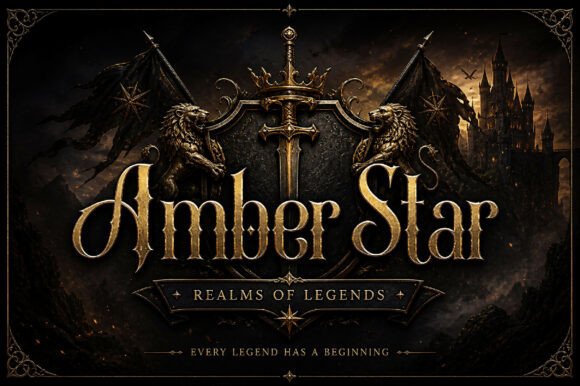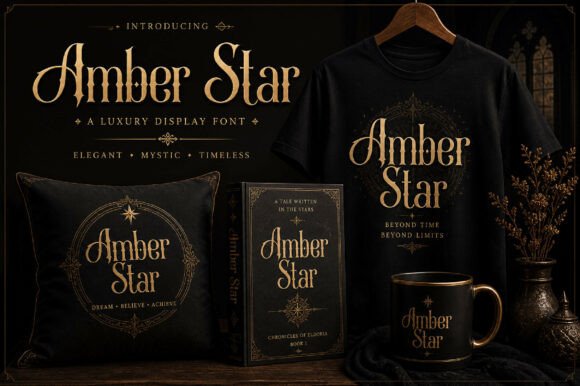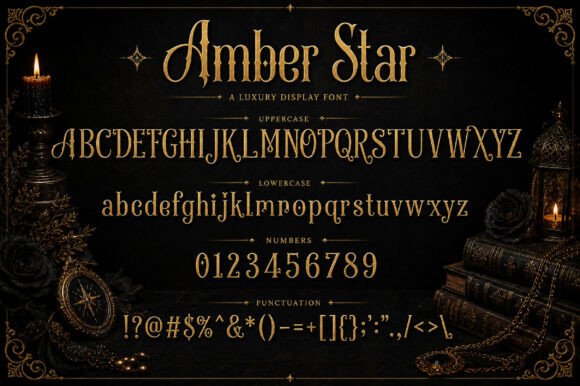
The Perfect Blend of Classic Elegance and Vintage Charm
There’s something magical about the moment when a design comes together, and every element feels just right. The colors, the textures, the typography – it all harmonizes to create a truly stunning visual identity. For designers, this moment is the culmination of hard work and attention to detail. And that’s exactly what the Amber Star Font helps to achieve.
This refined serif display font is a masterclass in blending classic elegance with a touch of vintage charm. With its sophisticated style and subtle decorative details, Amber Star Font creates a timeless and luxurious look that’s perfect for premium branding, editorial layouts, and more. Whether you’re designing for print or digital, this font is an excellent choice for those who want a beautifully crafted and distinctive presence.
With Amber Star Font, designers can add a sense of class and personality to their typography, making it a valuable addition to any design toolkit.
Amber Star Font Key Features
- Font Family: Amber Star is a unique, hand-drawn font that comes in a variety of styles, including regular, bold, and italic.
- Character Set: Features a comprehensive character set, including uppercase and lowercase letters, numbers, punctuation, and special characters.
- Unique Characteristics: Amber Star’s distinctive, hand-drawn style and subtle imperfections give it a warm, organic feel that sets it apart from more traditional fonts.
Amber Star Font Review
I’ve had the chance to work with the Amber Star font, and I must say it’s a unique addition to any design project. Here’s what I think:
- Whimsical feel**: Amber Star has a distinct, playful vibe that can elevate a design from ordinary to extraordinary.
- Legibility**: Despite its ornate details, the font is surprisingly easy to read, even at smaller sizes.
- Customization options**: The font comes in a range of weights and styles, allowing for a high degree of creative control.
- Overuse**: Amber Star’s distinctive style can be overwhelming if used excessively. Balance is key.
- Compatibility issues**: I experienced some minor rendering issues with certain text editors and browsers.
- Lack of italic and bold styles**: While the font offers various weights, it’s missing italic and bold styles, which can be a drawback for certain designs.
Overall, Amber Star is a solid choice for designers looking to add a touch of personality to their work. Just be mindful of its limitations and use it thoughtfully. With a little creativity and restraint, this font can shine.
Getting the Most Out of the Amber Star Font
To get the most out of the Amber Star font, consider the following tips:
- Use the font in conjunction with other elegant and cursive fonts.
- Use the font for titles, headings, and other important text elements.
The Amber Star font is commonly used for:
- Formal events and galas.
Alternatives to Amber Star Font
Amber Star Font is a popular font known for its elegant and sophisticated design. However, designers may be looking for alternatives to add variety to their work. Here are a few options:
Playfair Display is a luxurious and high-end font that is perfect for creating a sense of grandeur and sophistication. It is ideal for use in titles, headings, and other large-scale typography. Compared to Amber Star Font, Playfair Display has a more dramatic and ornate design, making it suitable for high-end branding and luxury products.
Didot is a classic and elegant font that is perfect for creating a sense of refinement and sophistication. It is ideal for use in formal and professional contexts, such as business cards, letterheads, and marketing materials. Compared to Amber Star Font, Didot has a more traditional and timeless design, making it suitable for use in a wide range of industries and applications.
Q: What is the recommended line height for Amber Star?
The recommended line height for Amber Star is 1.2 to 1.5 times the font size. This allows for optimal readability and balance in your designs. You can adjust the line height to suit your specific design needs.
Q: Does Amber Star support languages other than English?
Yes, Amber Star supports a wide range of languages, including Latin, Cyrillic, and Greek scripts. It also includes a comprehensive set of glyphs and diacritical marks to support languages such as French, German, and many others.